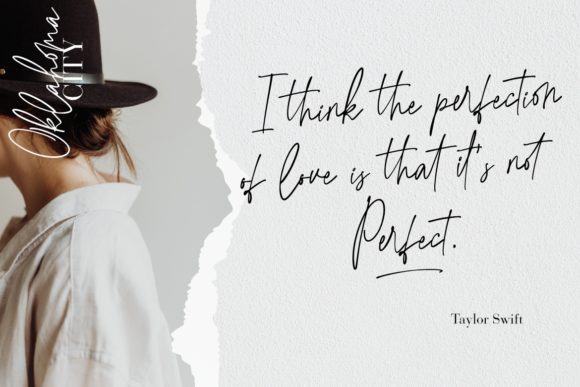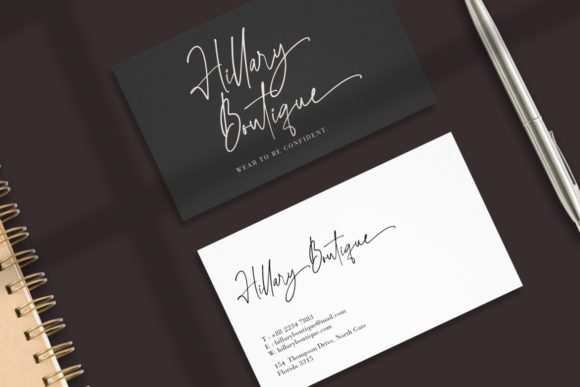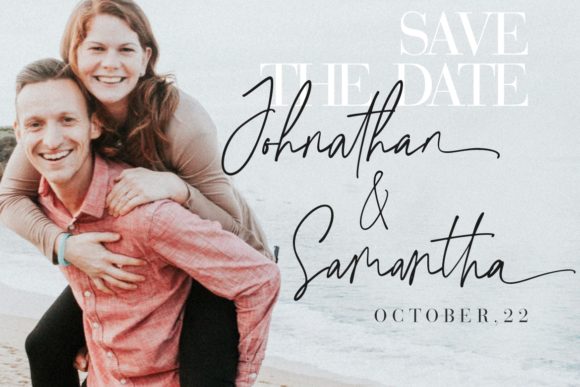
Introduction to Agatha Christy Font
Agatha Christy is a romantic and sweet calligraphy typeface with characters that dance along the baseline.
This font is PUA encoded which means you can access all of the glyphs and swashes with ease It has a clean, thin and smooth vibe and it will be a hit for any design that you want to add it to.
Agatha Christy Font offers exceptional quality and versatility, making it a valuable addition to your design toolkit. Whether you’re creating for personal projects or commercial use, Agatha Christy Font delivers professional results.